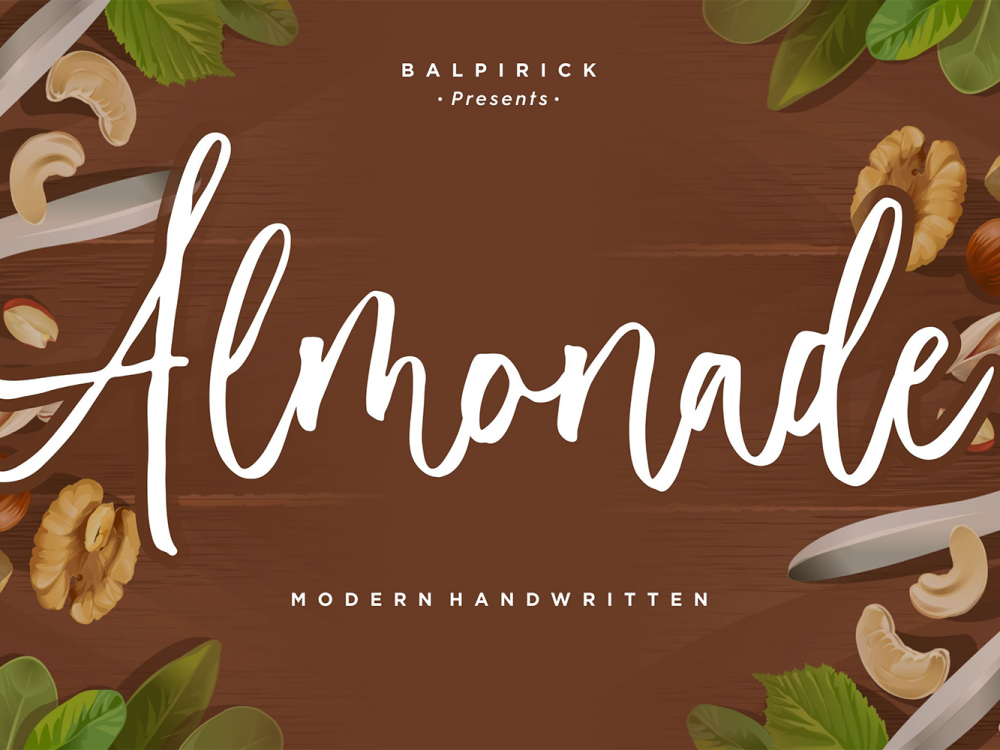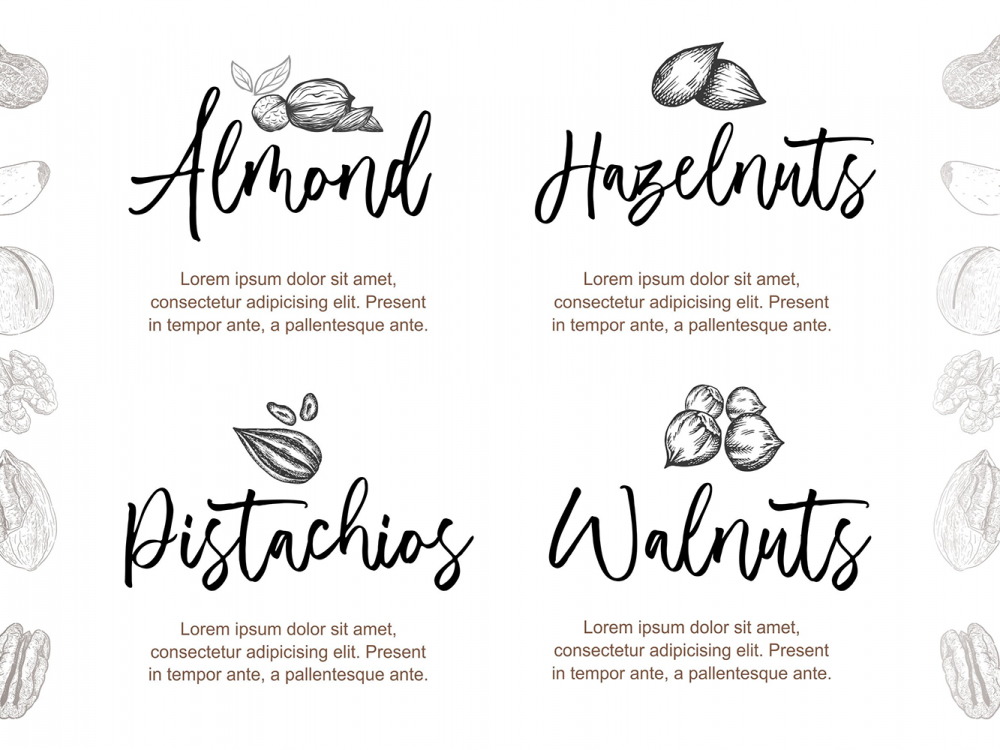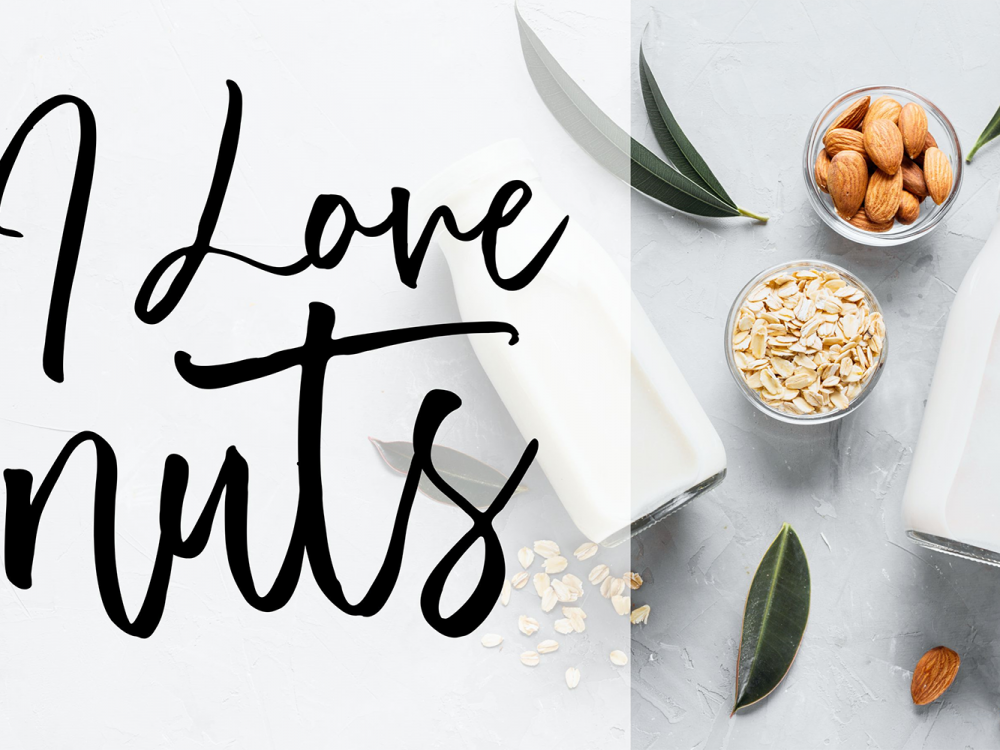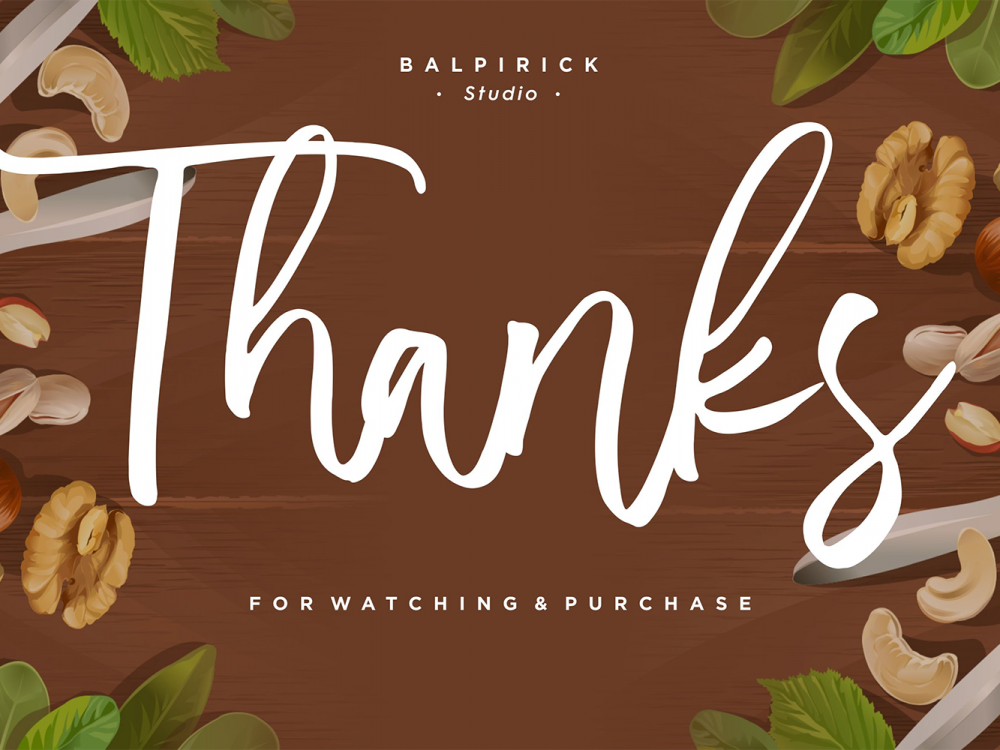
Almonade Free Font
Almonade Free Font is a modern handwritten typeface featuring an elegant calligraphic style. This font will help you create unique design projects, your own corporate identity and improve your professional level. Use this font to create memorable posters, wedding invitations, cards, branding, flyers, and more. If you like it don’t forget to check out the full version.